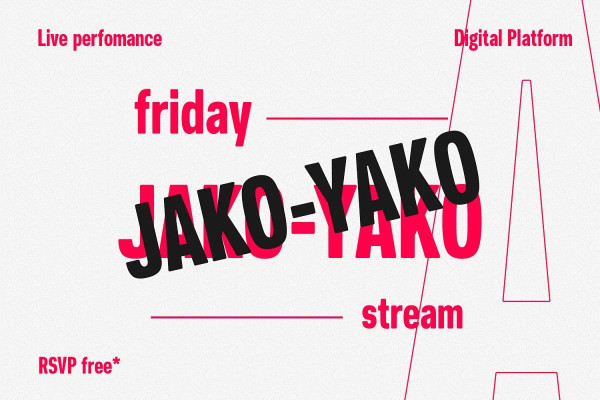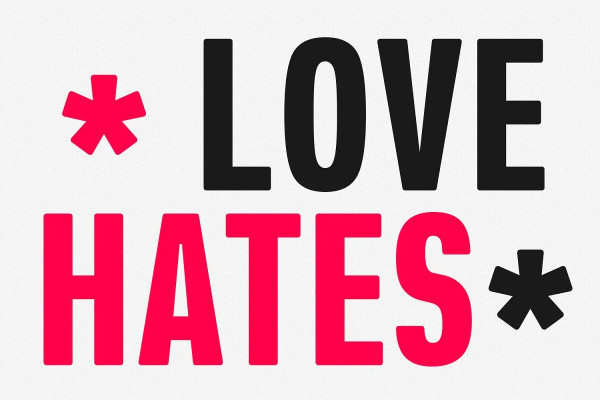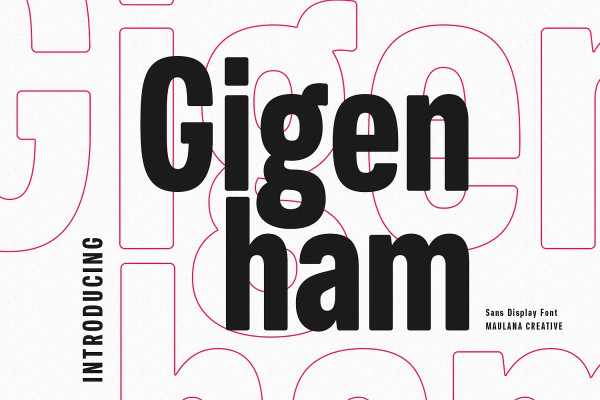
Gigenham Font
Gigenham Font is a Retro-ish condensed sans font. Bold stroke, fun character with a bit of ligatures and alternates. To give you an extra creative work. Gigenham font support multilingual more than 100+ language. This font is good for logo design, Social media, Movie Titles, Books Titles, a short text even a long text letter and good for your secondary text font with script or serif. Make a stunning work with Gigenham font.